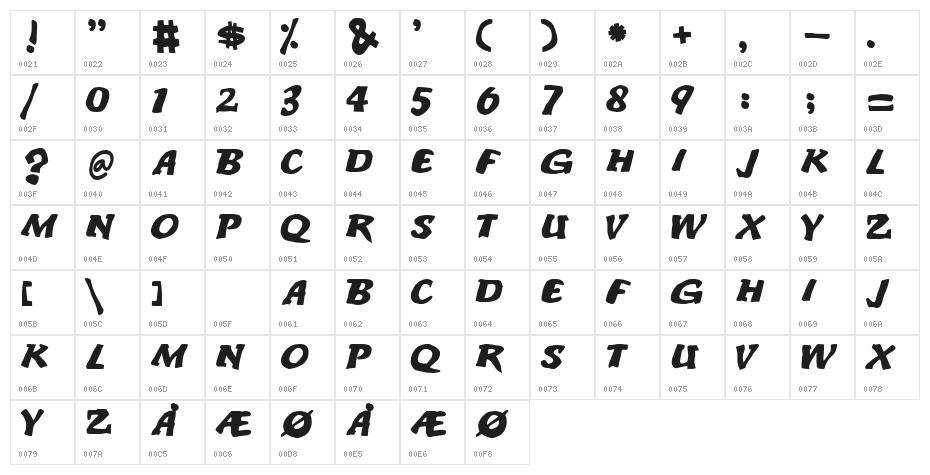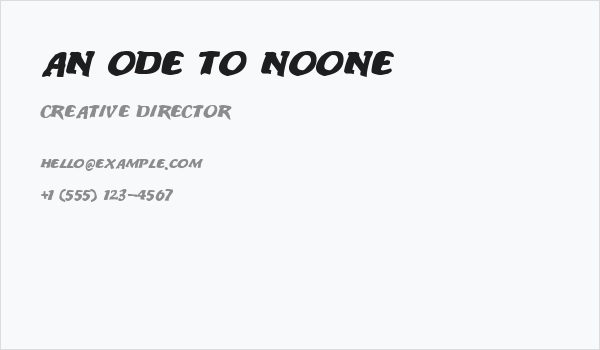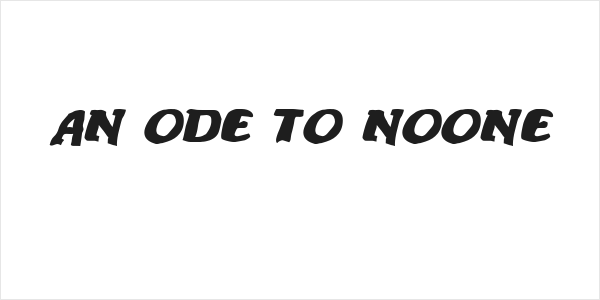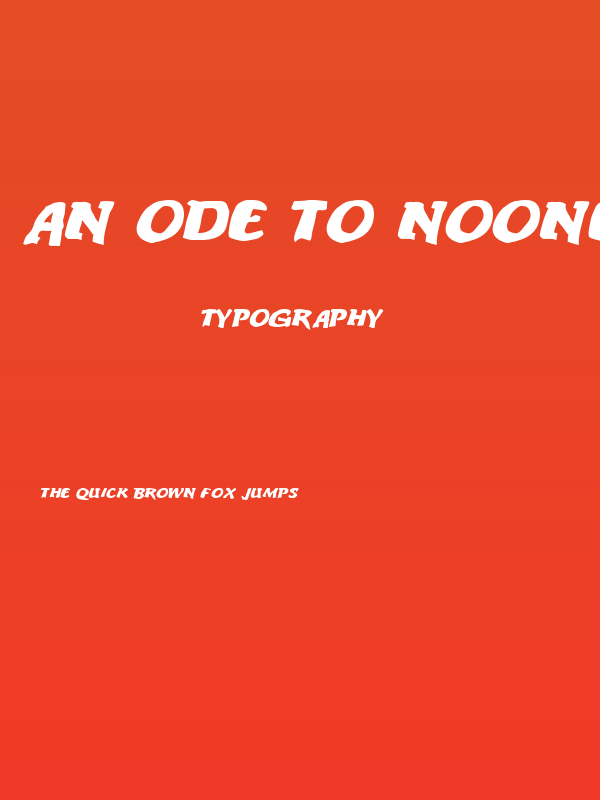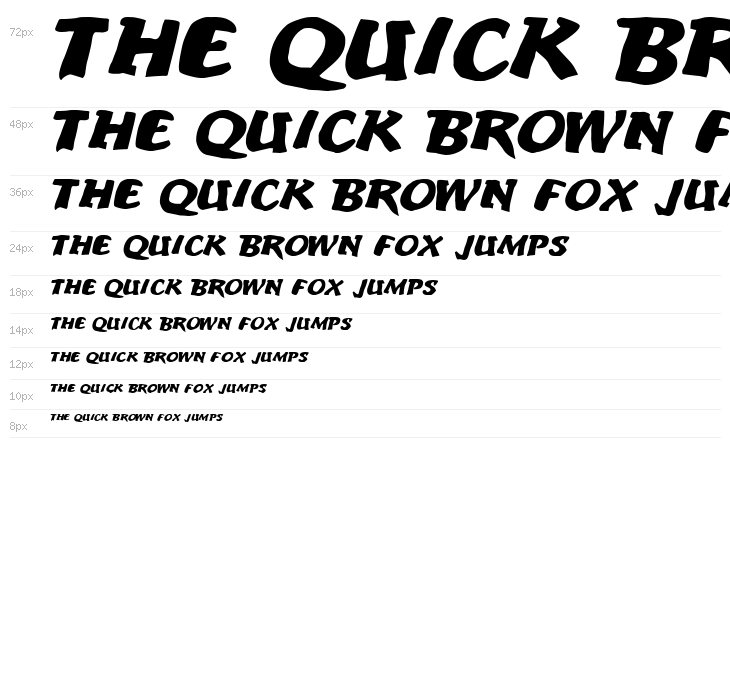
An ode to noone Font
An ode to noone Description
This font features a bold and dynamic style with a strong presence. The characters are slightly slanted, giving a sense of motion and energy. The strokes are thick and consistent, providing a robust and impactful appearance. The uppercase and lowercase letters maintain a uniform style, enhancing readability while still offering a unique flair. The numbers and special characters are designed to match the overall aesthetic, ensuring cohesion across all elements. This font is ideal for projects that require a bold statement, combining both modern and classic elements.
| Proposed Projects | Perfect for branding, posters, headlines, and any design needing a strong, energetic typeface. |